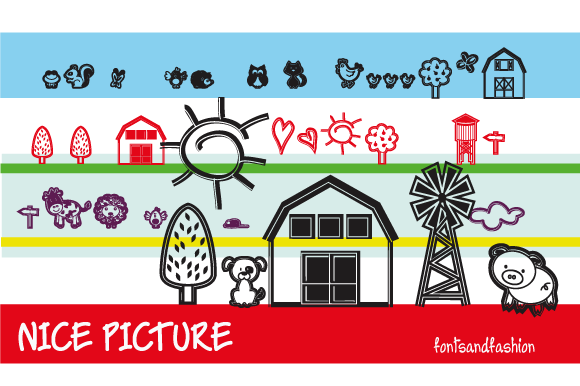
Step into the captivating world of Nice Picture, a font that sparks imagination and leaves an indelible impression. Dive into the realm of countless possibilities, where creativity flourishes and individuality shines. Discover the endless opportunities that await as you unleash your artistic vision with this exceptional dingbats font.
Nice Picture, created by the renowned Fontsandfashion, is an artistic masterpiece that captivates and enchants. Its playful and quirky characters dance across the page, adding a touch of whimsy and charm to your designs. Whether you're crafting funny mugs, designing eye-catching posters, or creating unique social media graphics, Nice Picture brings a spark of magic to every project.
With its diverse range of symbols, icons, and ornaments, Nice Picture offers endless possibilities for creative expression. Its versatility knows no bounds, allowing you to craft designs that are both captivating and memorable. Transform ordinary text into extraordinary visuals, where every character tells a story and every design element contributes to an immersive experience.
Embrace the joy of expression with Nice Picture, a font that captures the essence of fun and lightheartedness. Let your creativity soar as you explore the myriad ways to incorporate this remarkable font into your designs. Join the ranks of satisfied users who have discovered the transformative power of Nice Picture, and elevate your creations to new heights of visual appeal.
Unleash your inner artist and embark on a creative journey with Nice Picture. Its user-friendly interface and intuitive design make it accessible to both seasoned designers and those just starting their creative adventure. Experience the joy of effortless design as you effortlessly bring your ideas to life.
Dive into the world of Nice Picture today and unlock a treasure trove of creative possibilities. It's the perfect font for adding a touch of playfulness and charm to any project. Experience the difference that truly exceptional fonts can make.